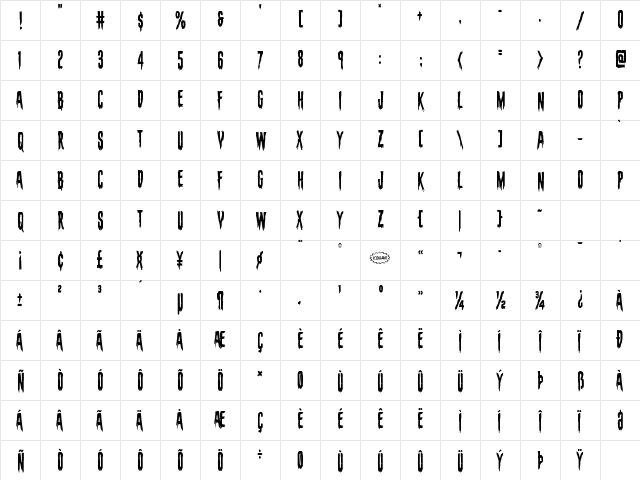
Complete Eva Fangoria Condensed glyph index. Displaying only characters natively supported by Eva Fangoria Condensed font.
Eva Fangoria Condensed is a composed and adaptable typeface that performs quietly and consistently across a wide range of design contexts. Its narrow stance lets it pack a punch even in space-constrained designs.